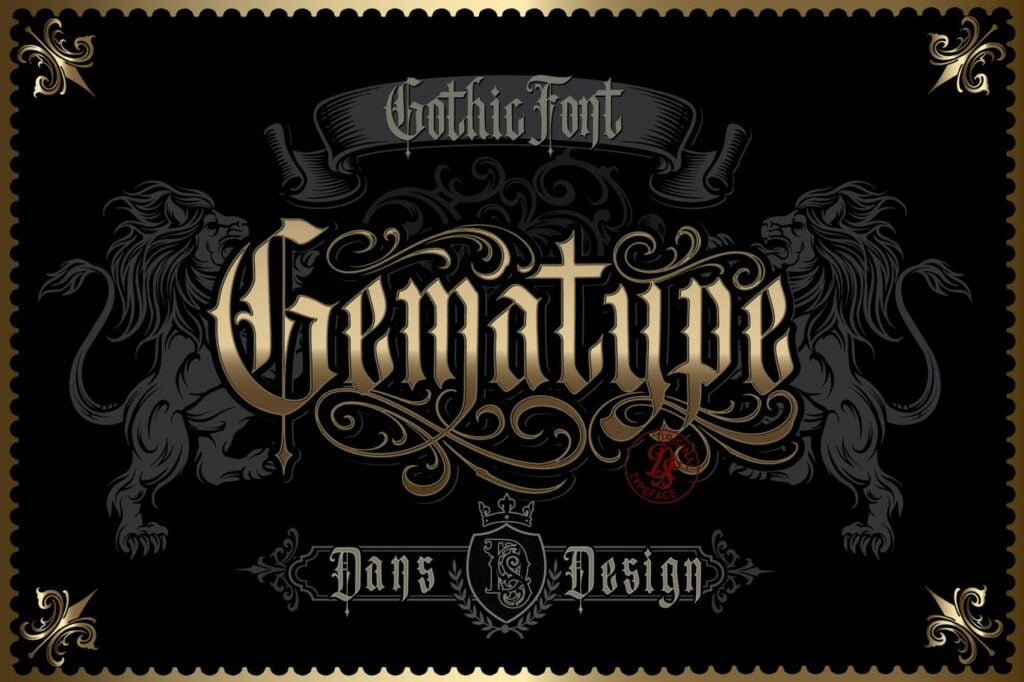
Gematype Font
Dansdesign Proudly present “ Gematype ” modern blackletter font, This font is made with references to various letters that I combine and design with my style.
Gematype are great and usefull for product logo, poster title, headline, packaging, badge, wedding card logo, clothing brand logo,Vintage design and much more.
Gematype Blackletter Font